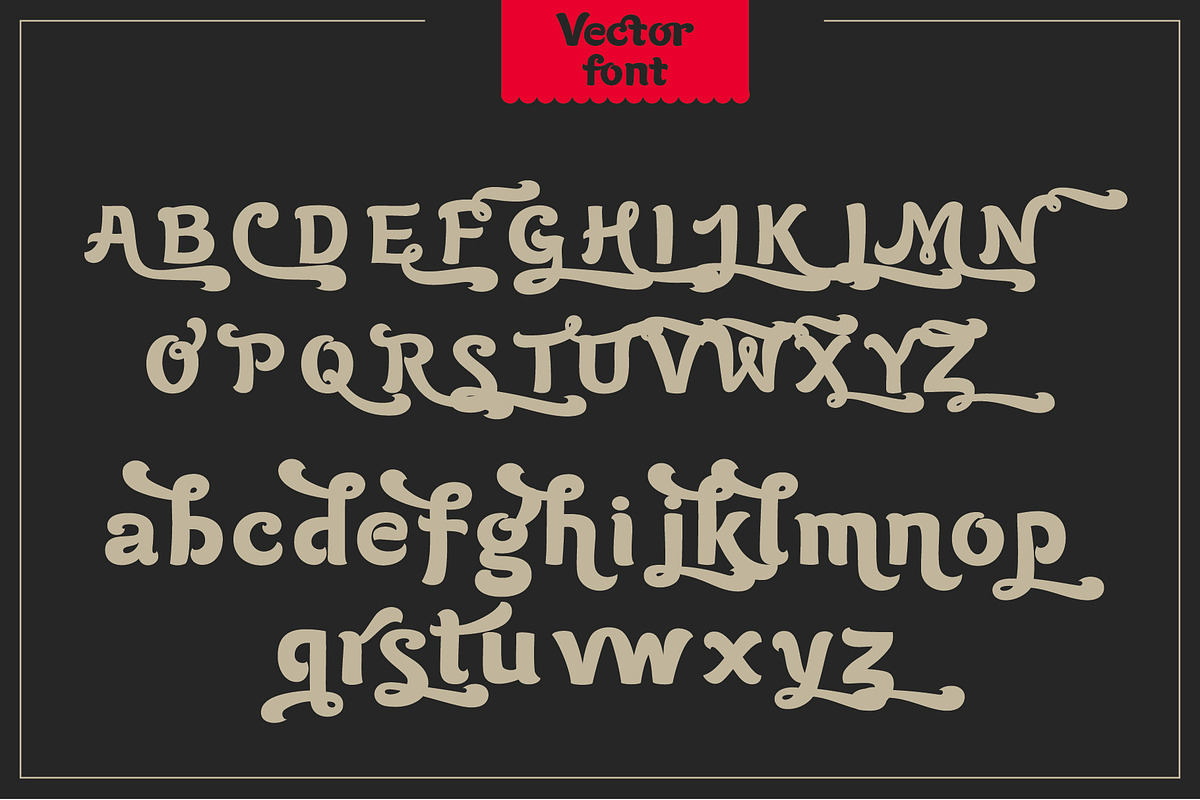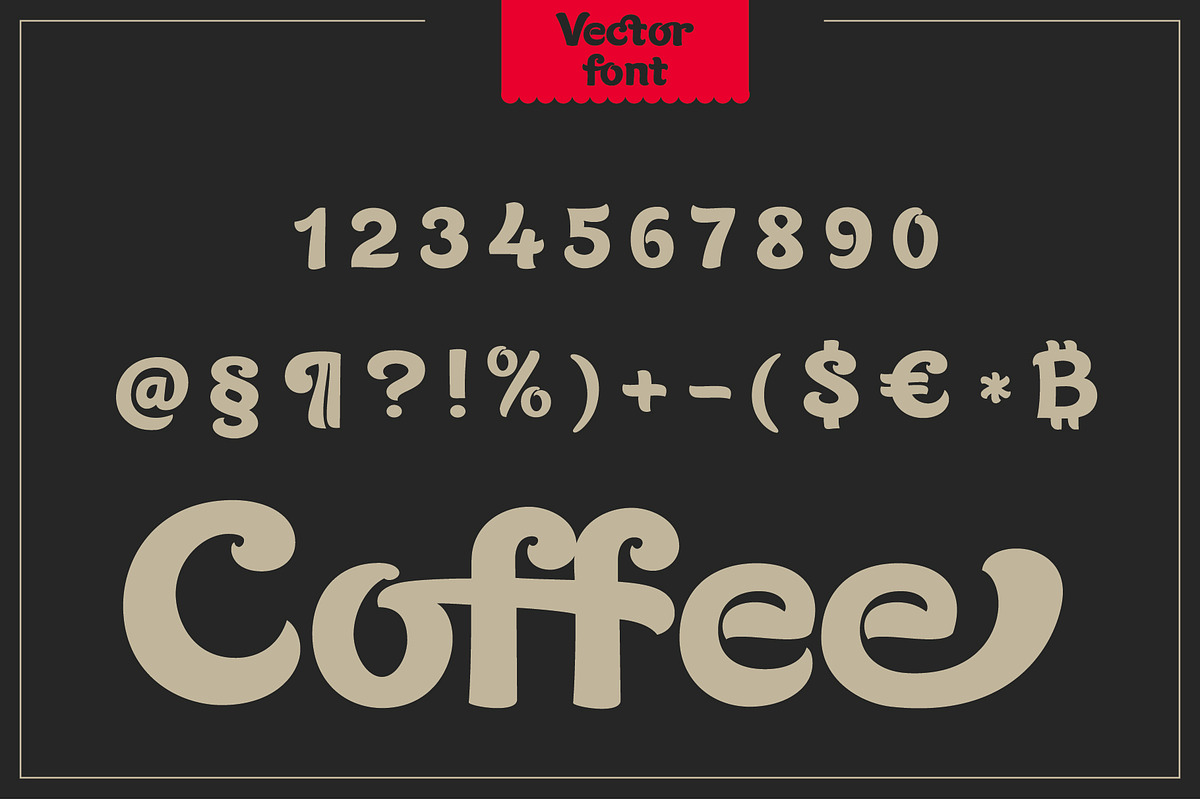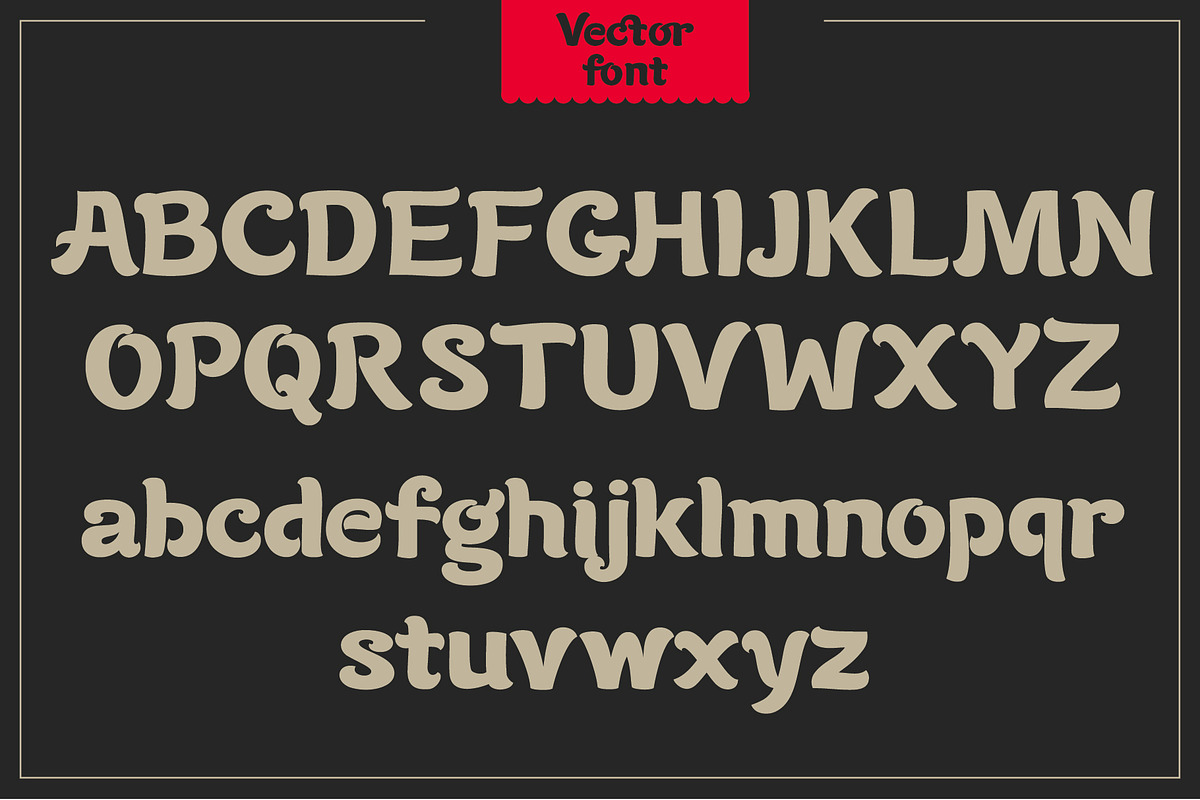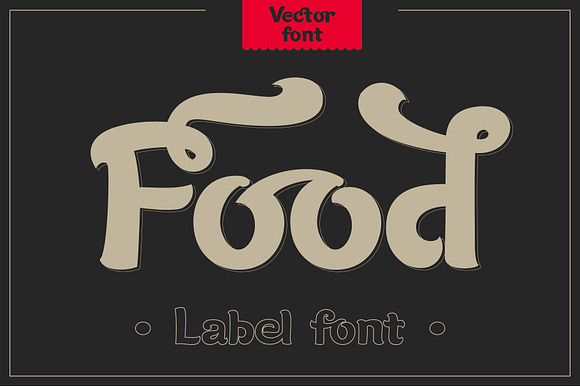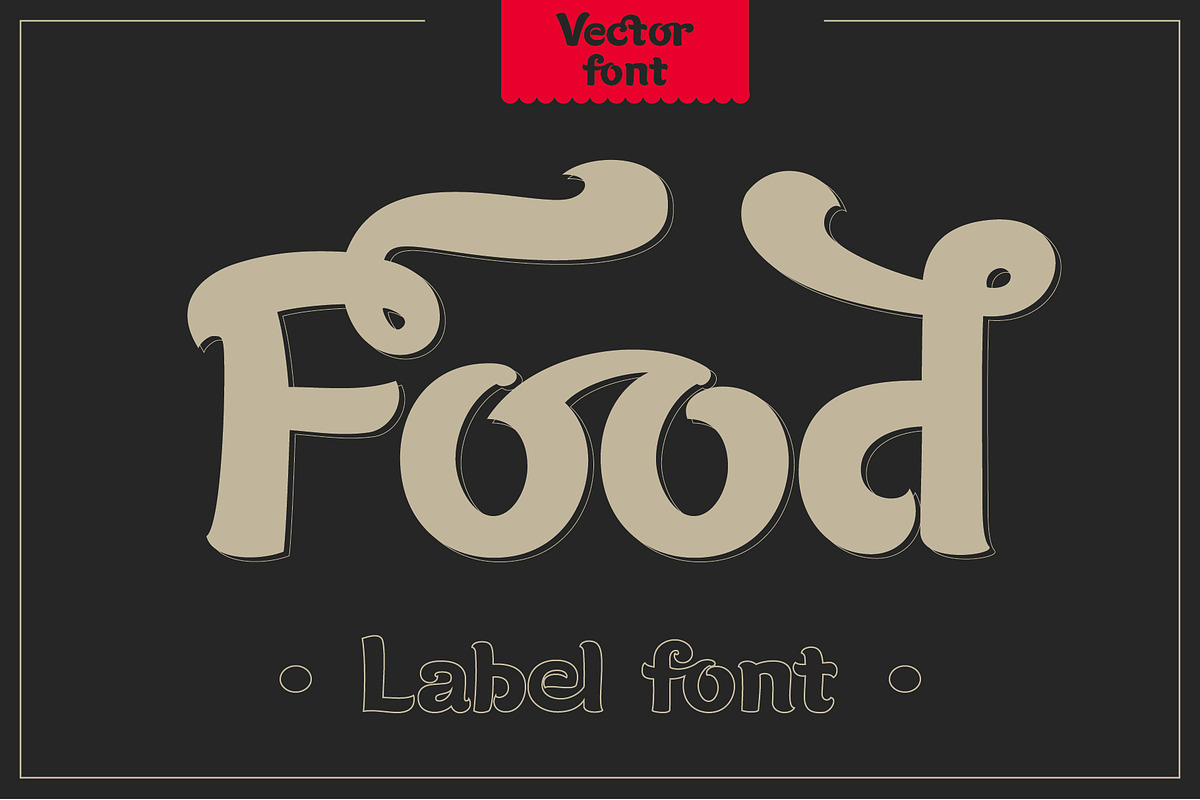
LabelFood font, vector letters
Set of vector letters for etiquette and packing of food and all enjoyable things.
LabelFood font, vector letters by ZotovShop fits naturally into Branding, posters, packaging, typography.